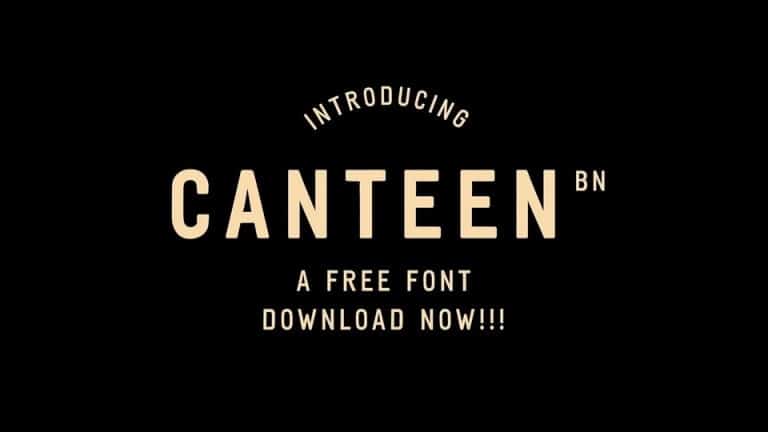
Canteen BN Sans Serif Font
On the basis of the classical form, Canteen BN Font meets all the requirements that are placed on a good font, such as good readability, a sympathetic overall impression, as well as a balanced gray-effect.
Canteen BN boasts horizontal and vertical strokes that are nearly identical in width, giving the family a compact, modern look and feel.